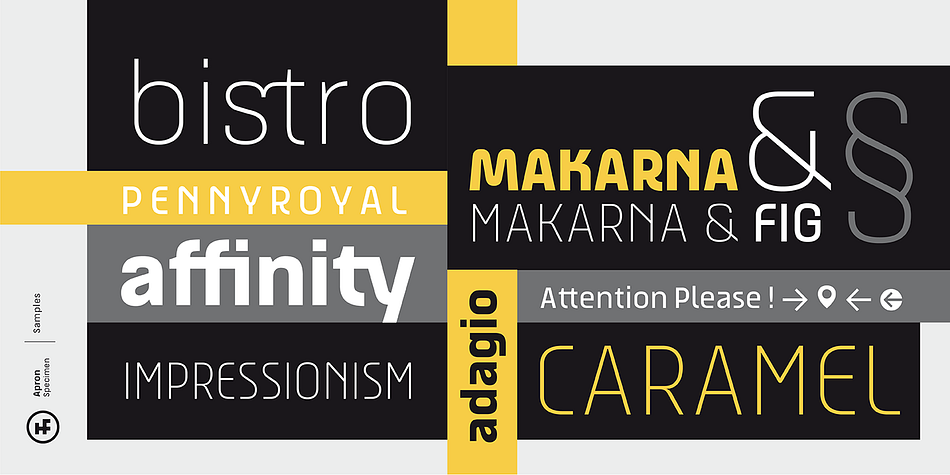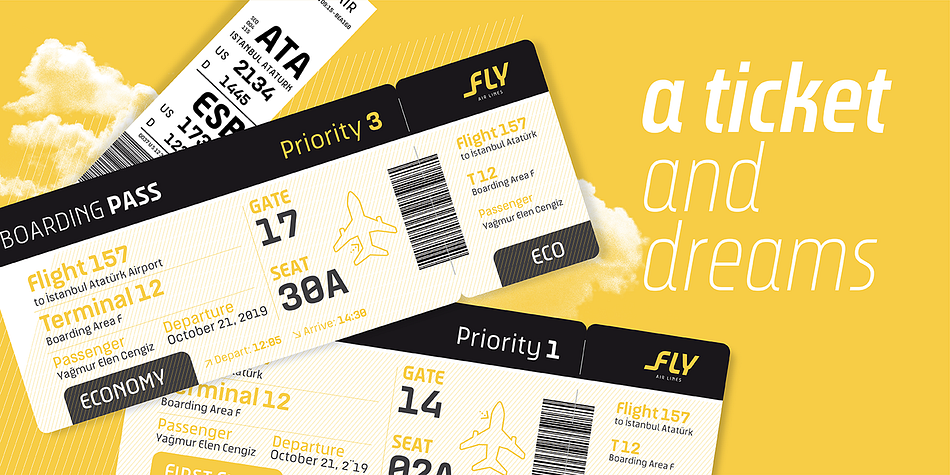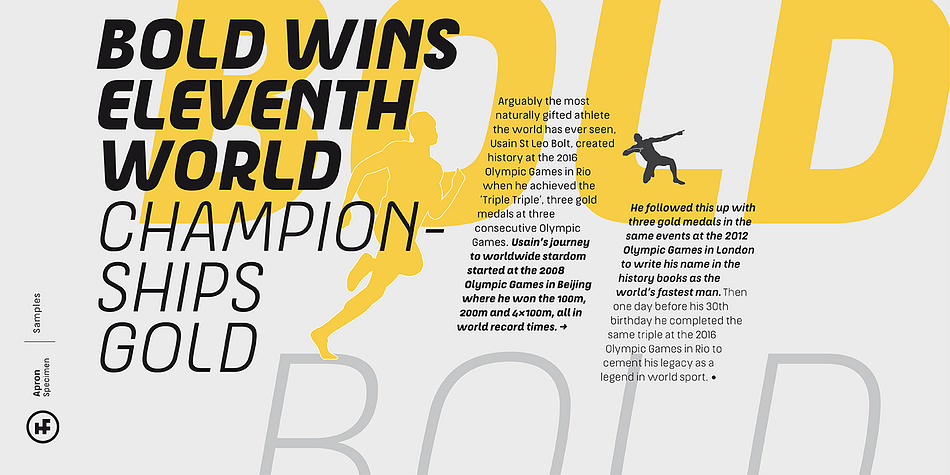
Apron
Designed by Oğuzhan Cengiz, Apron is a display sans font family. This typeface has forty-two styles and was published by Hurufatfont Type Foundry.
The genesis of Apron font type family is inspired by soft-vertical structure of airplane window. On the other hand Apron is making a reference to technological design mentality of early 2000’s.
In short texts it has stable view and also humanist effect. Very suitable for mobile apps, web designs, sportive & technological product packs and ads designs. Especially Narrow Bold and Condensed Bold Italic weights have fluid and strong expression for striking headlines.
User friendly Apron serves rich opentype properties; small capitals, alternative letters (a, c, e, g, k, l, q, s, y, A, C, G, K, M, N, R, S, 3, 6, 9), stylistic sets, standart and optional ligatures, oldstyle figures, tabular linings, arrows, bullets and wide money currencies, fractions and math symbols.